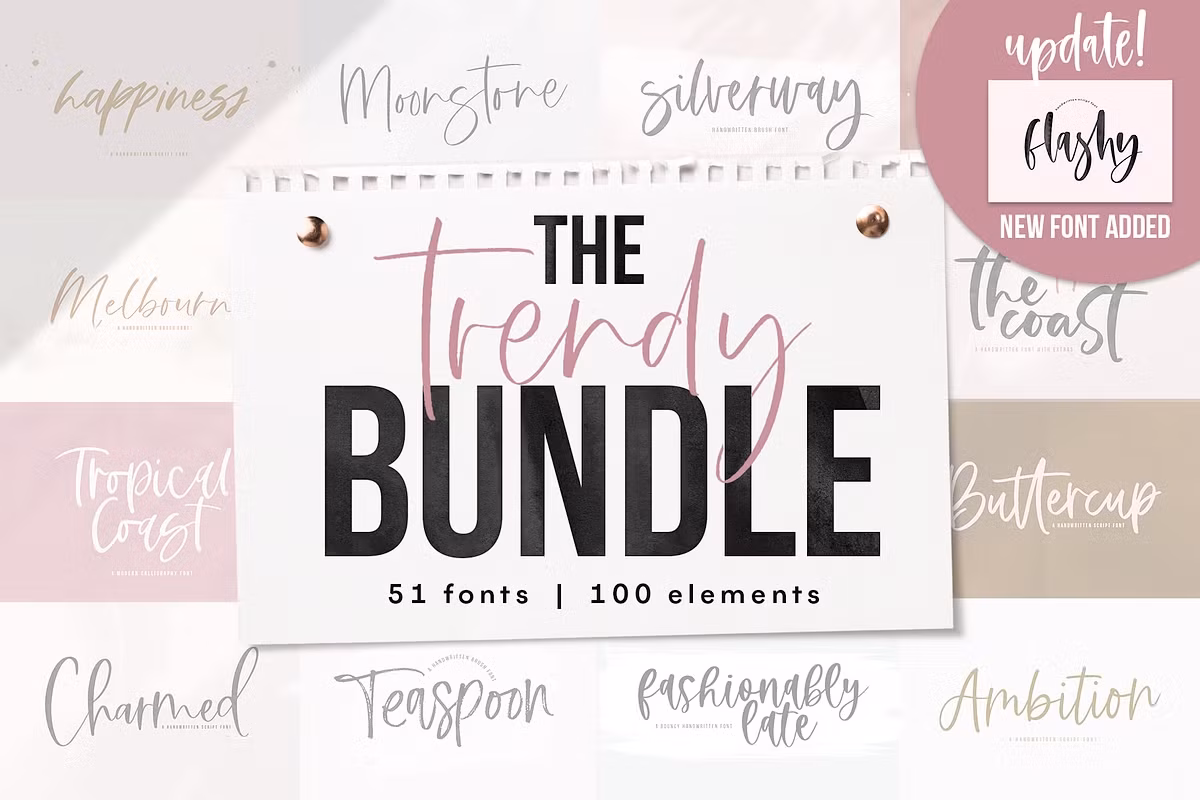
The Trendy Font BUNDLE Free Download
The Trendy Font BUNDLE Free Download is an extensive collection of stylish and contemporary fonts designed for modern design projects. This bundle includes a variety of font styles, ranging from elegant serifs and minimalist sans-serifs to playful scripts and bold display fonts. Perfect for branding, marketing materials, websites, logos, and social media graphics, this bundle provides everything you need to elevate your typography and create trendy, eye-catching designs.
Using The Trendy Font BUNDLE Free Download gives you the flexibility to experiment with different font combinations for your creative projects. Whether you’re working on a chic logo, designing promotional material, or crafting social media content, this font bundle ensures you have the perfect typography to bring your ideas to life.